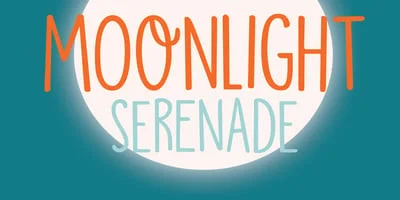
Moonlight Serenade Font
Moonlight Serenade Font is perfect for wedding invitations, romantic greeting cards, luxury branding, elegant logos, book covers, magazine headlines, poetry collections, and sophisticated packaging designs.
This font is exciting because it captures the essence of vintage romance with modern sophistication. Moonlight Serenade Font features graceful curves and elegant letterforms that evoke the glamour of classic Hollywood and jazz-age elegance, making it ideal for projects that require a touch of timeless beauty and refined charm.
The Moonlight Serenade Font family includes regular, italic, bold, and decorative variants, along with stylistic alternates and ligatures that enhance its versatility. Each weight maintains the font's romantic character while offering different levels of emphasis for various design needs.
Whether you're designing for high-end fashion brands, creating memorable wedding stationery, or developing sophisticated marketing materials, Moonlight Serenade Font provides the perfect balance of elegance and readability. Its distinctive character makes it an excellent choice for designers seeking to add a touch of vintage glamour to their projects. The font's versatility extends from digital applications to print media, ensuring consistent performance across all platforms. With its carefully crafted letterforms and attention to detail, this typeface delivers professional results that captivate audiences and enhance brand identity with its unmistakable romantic appeal and timeless aesthetic quality.